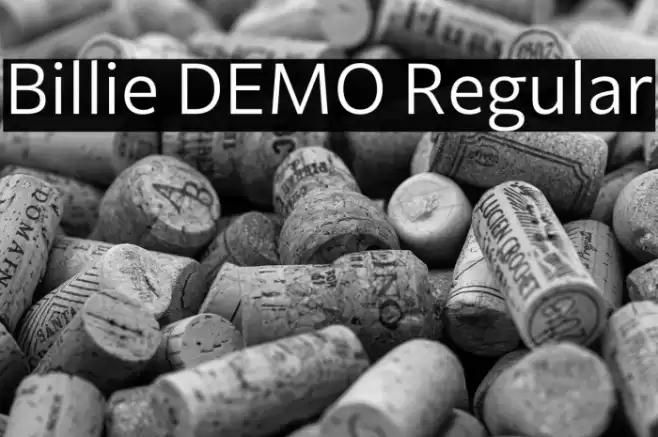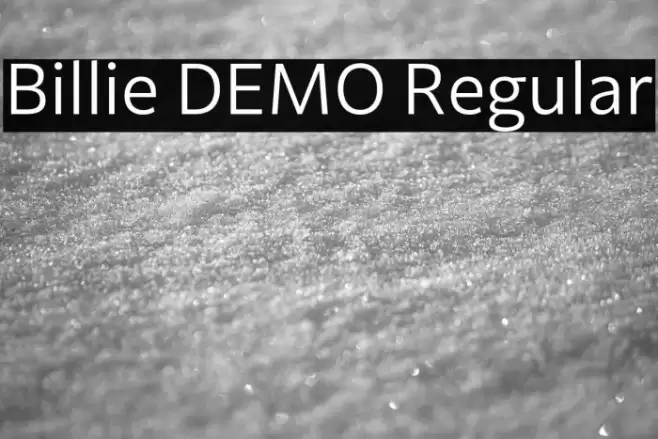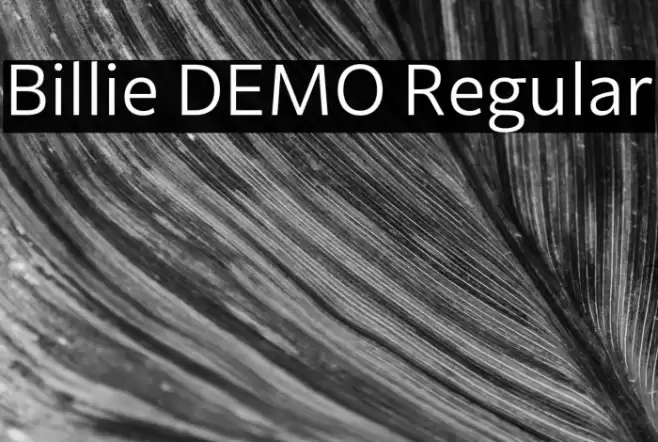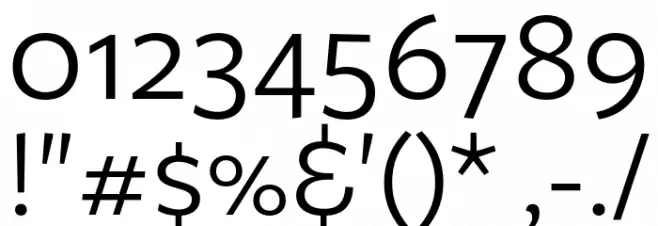
Billie DEMO Regular Font
Billie DEMO Regular Description
This font features a clean and modern sans-serif design, characterized by its simplicity and readability. The letters are well-proportioned with a consistent stroke width, offering a balanced and harmonious appearance. The uppercase and lowercase letters are distinct yet complementary, making it versatile for various design needs. The numerals are clear and legible, while the special characters are neatly integrated, maintaining the overall aesthetic. This font is suitable for both digital and print media, providing a professional and contemporary look.
A clean, modern sans-serif font with balanced proportions and excellent readability from Uncategorized fonts.
- Proposed Projects: Ideal for branding, web design, corporate materials, and editorial layouts.